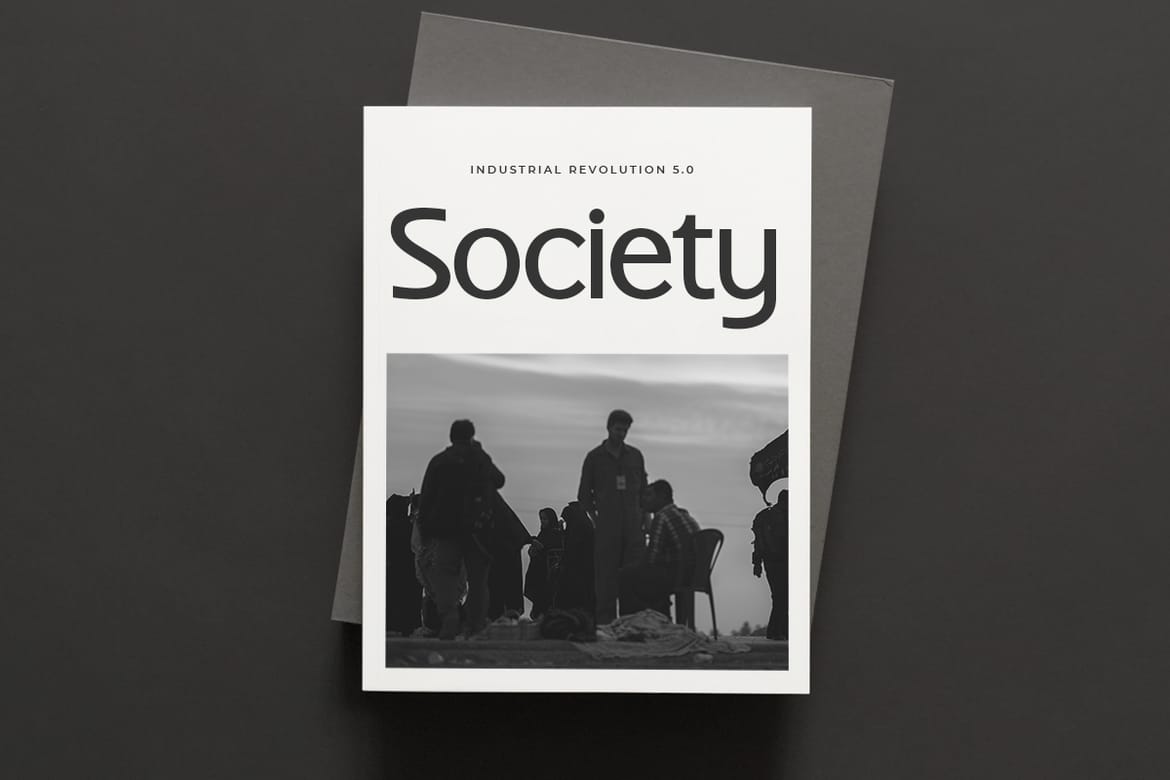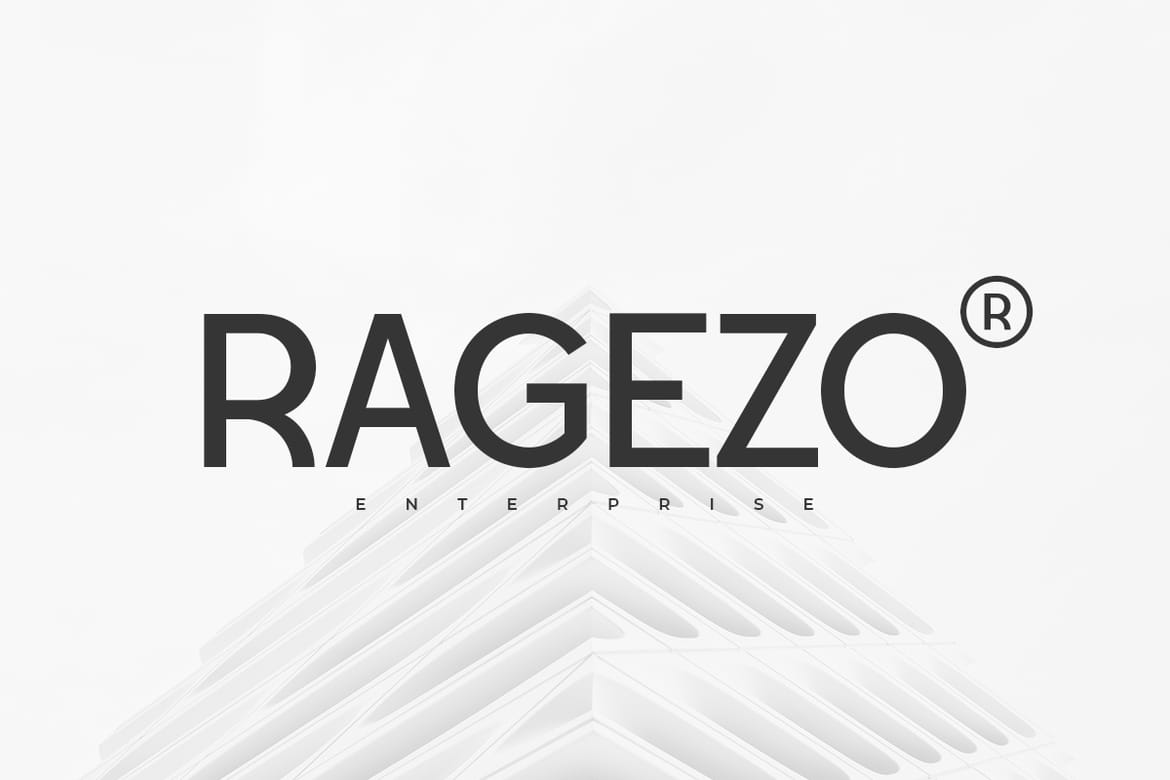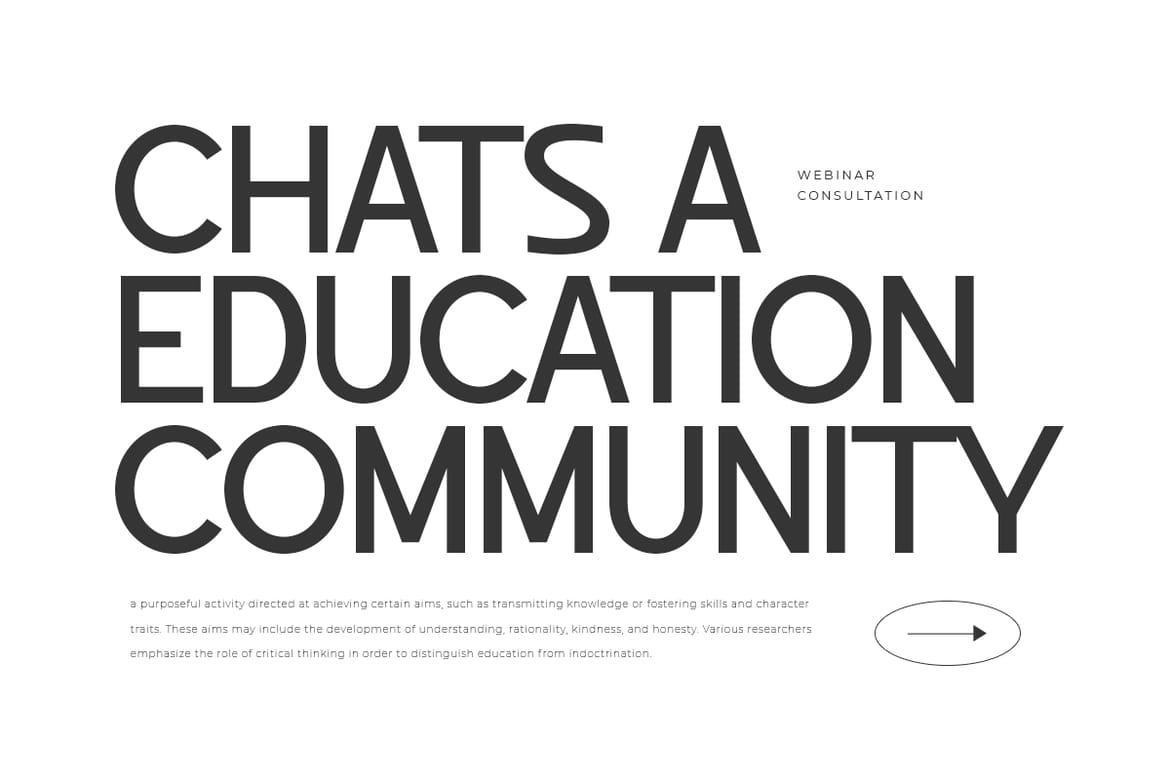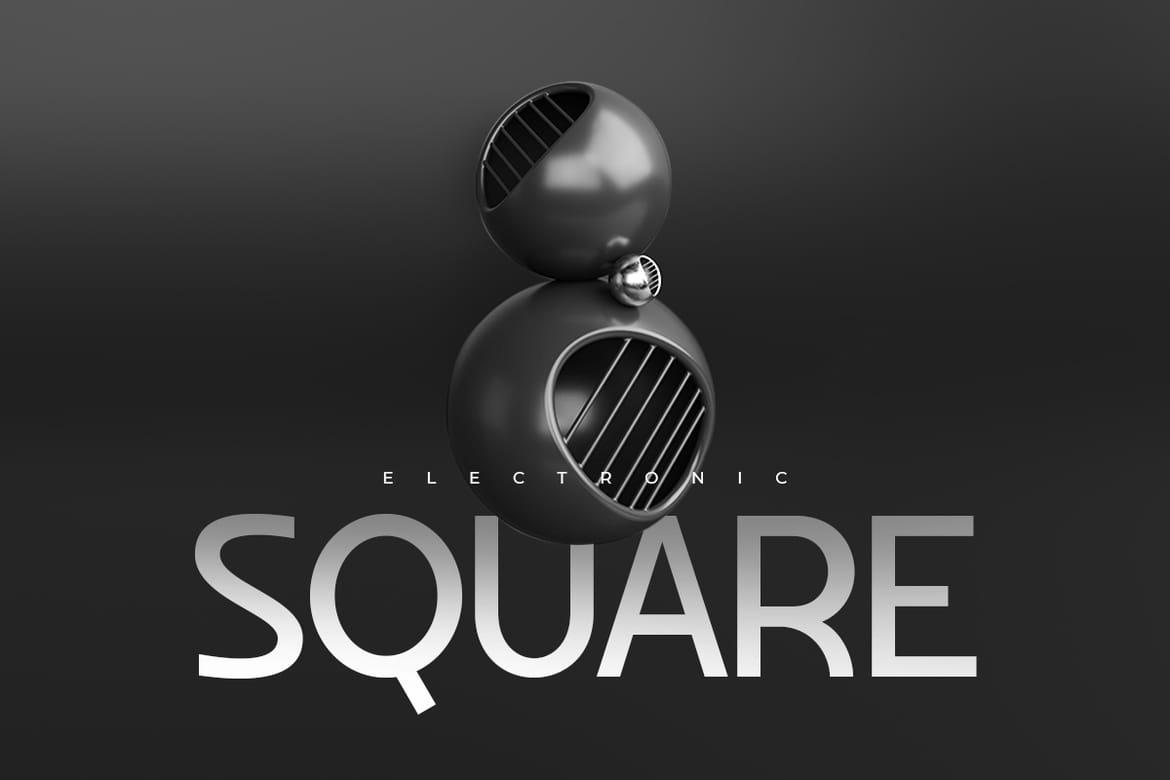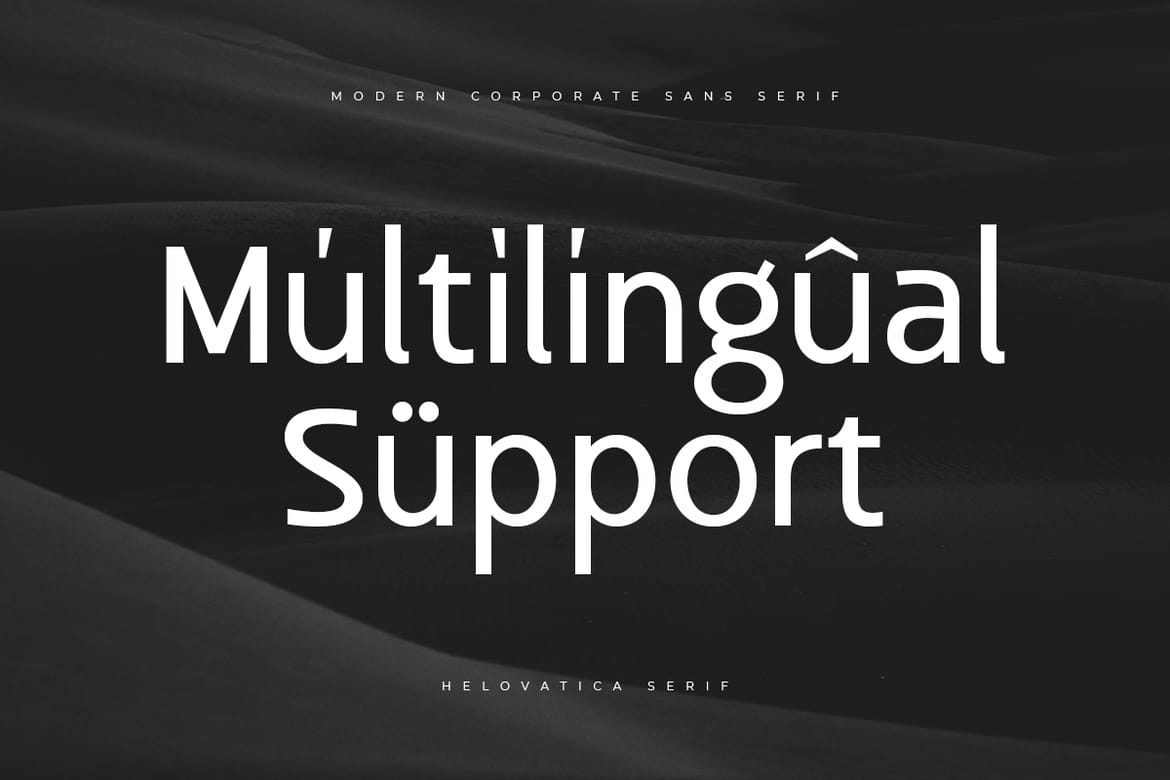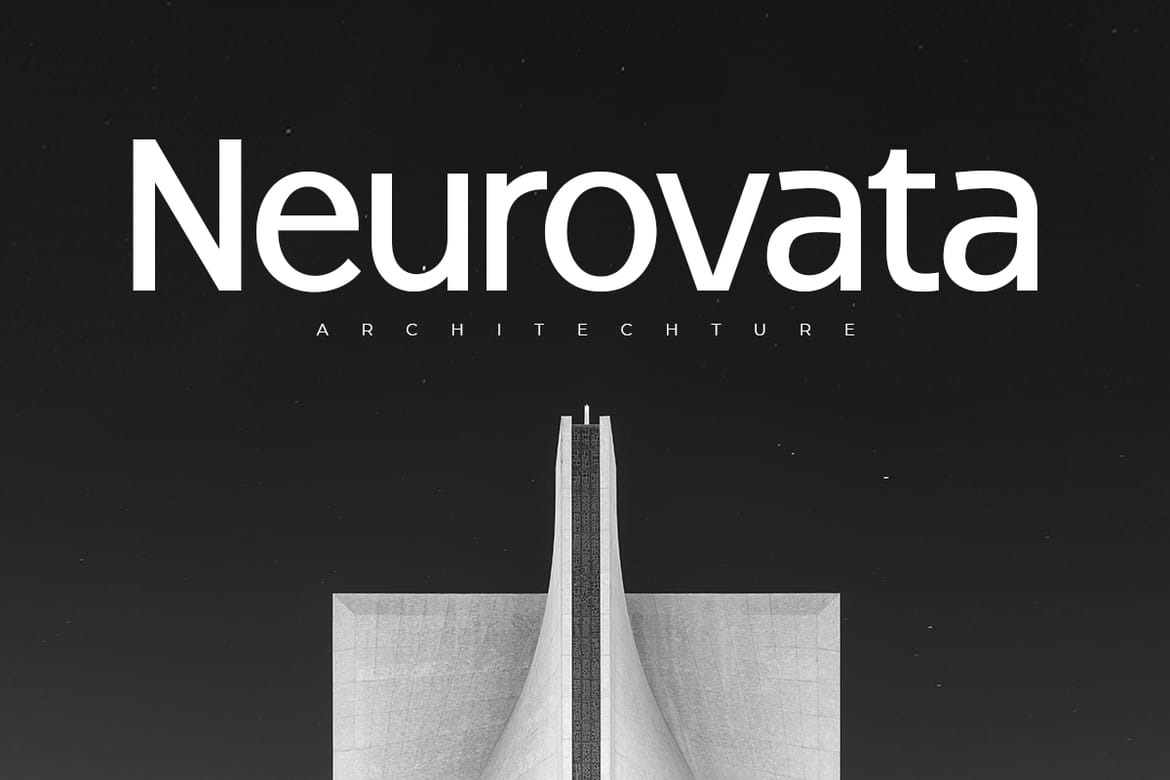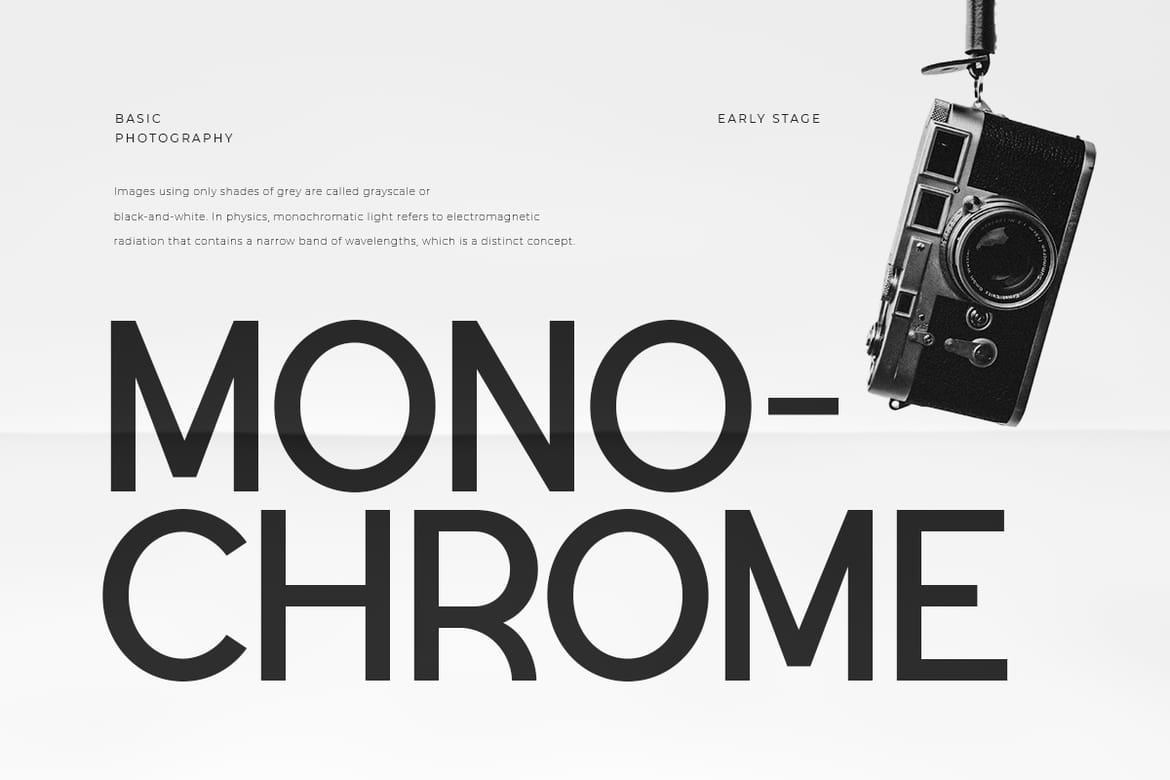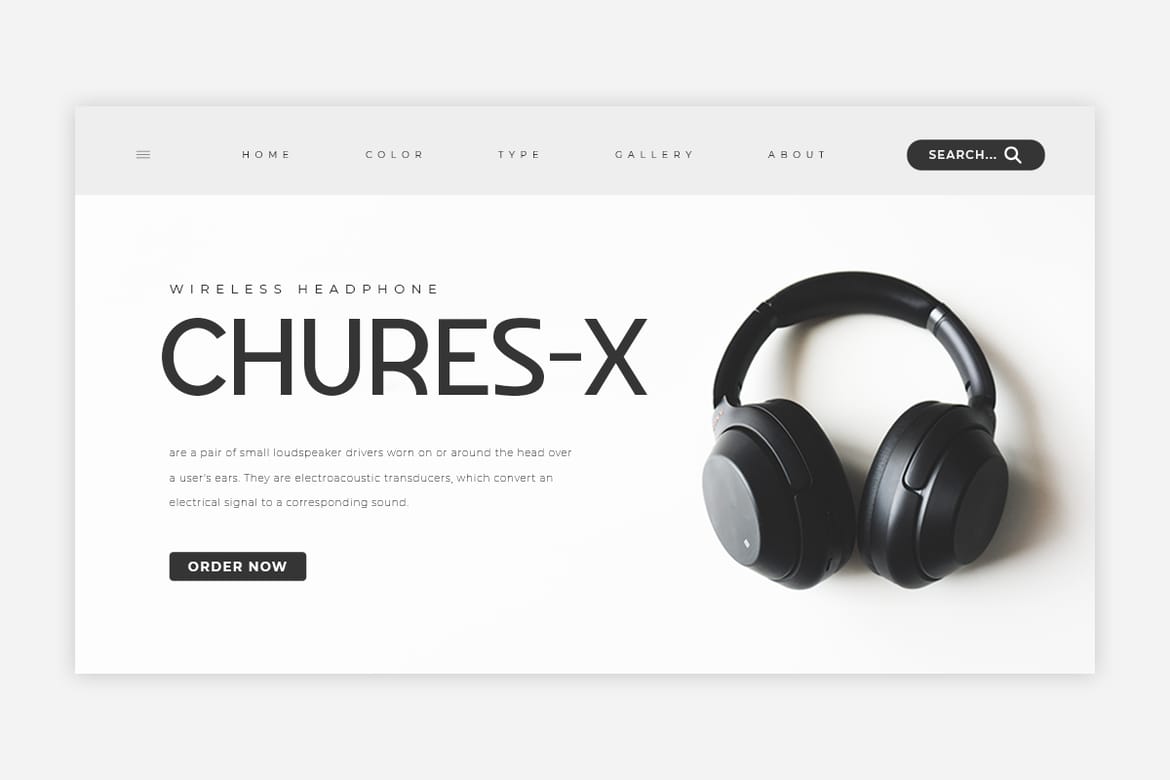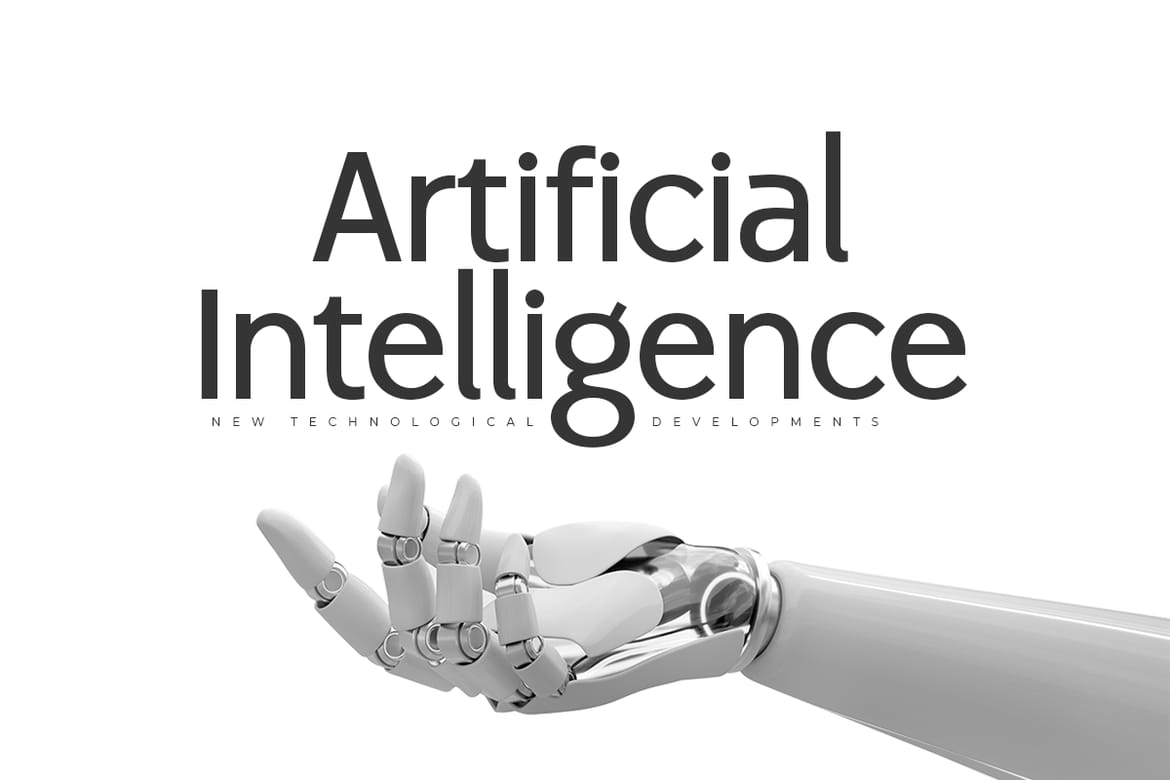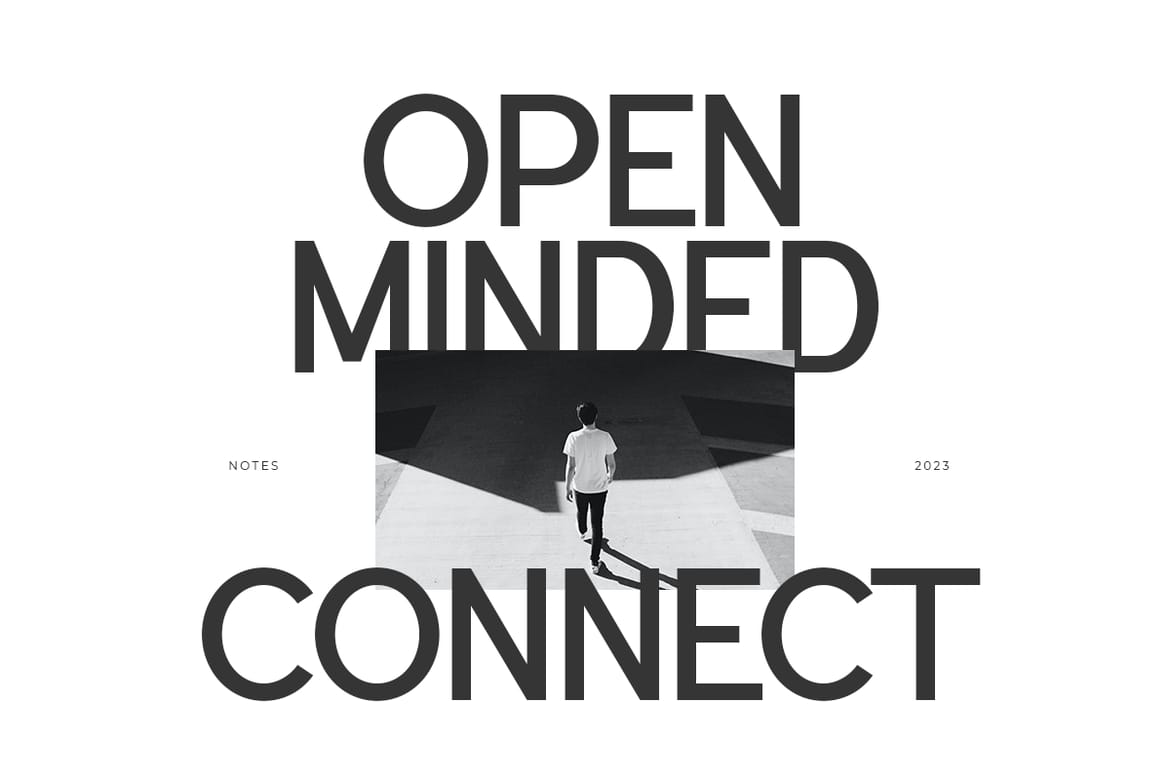
Helovatica - Corporate Sans Serif
Helovatica is a sans serif font with modern, corporate, elegant, unique and classy-look. This font crafted specials for logo design projects, ready to use on Logo, Branding, Magazine, Social Media, and Many more that needs modern touches. Helovatica is also included full set of: Uppercase and Lowercase Letters Multilingual Characters Numerals Punctuation What will you get? Helovatica.otf Helovatica.ttf Helovatica.woff2 Wish you enjoy our font. :)
• Modern corporate classy design
• Multilingual full character set